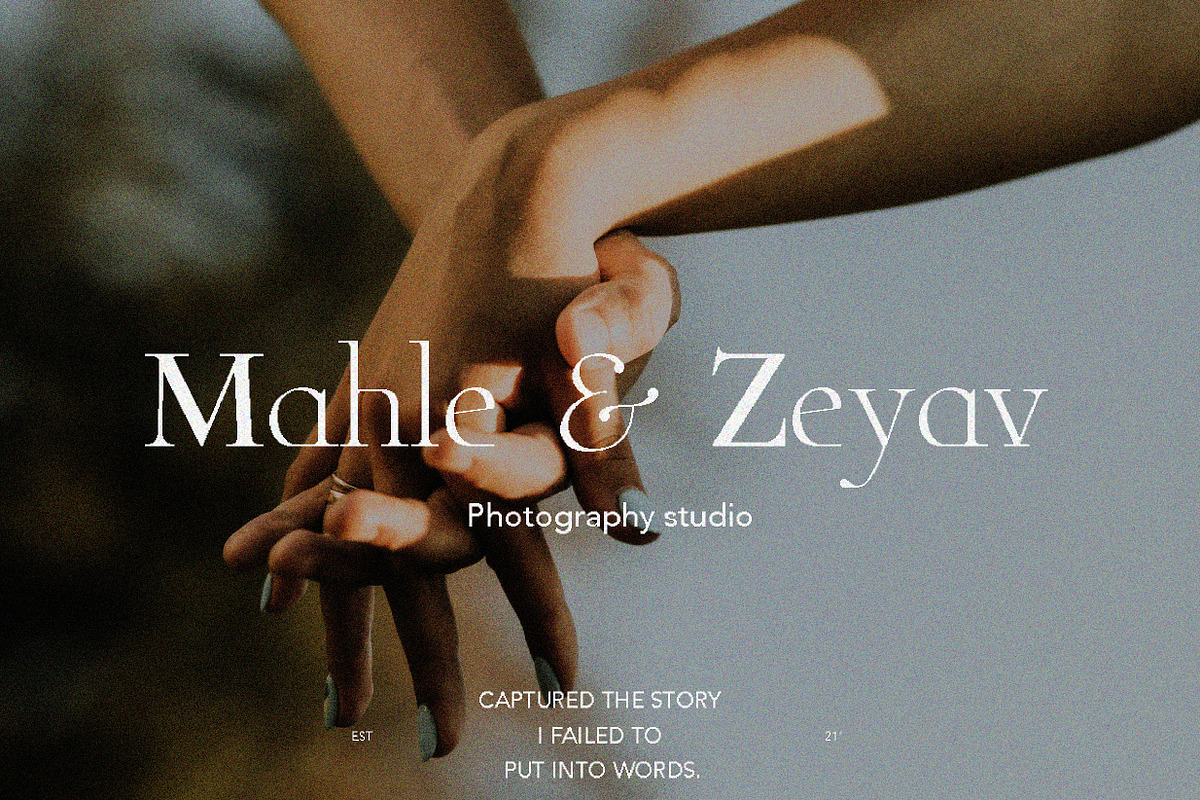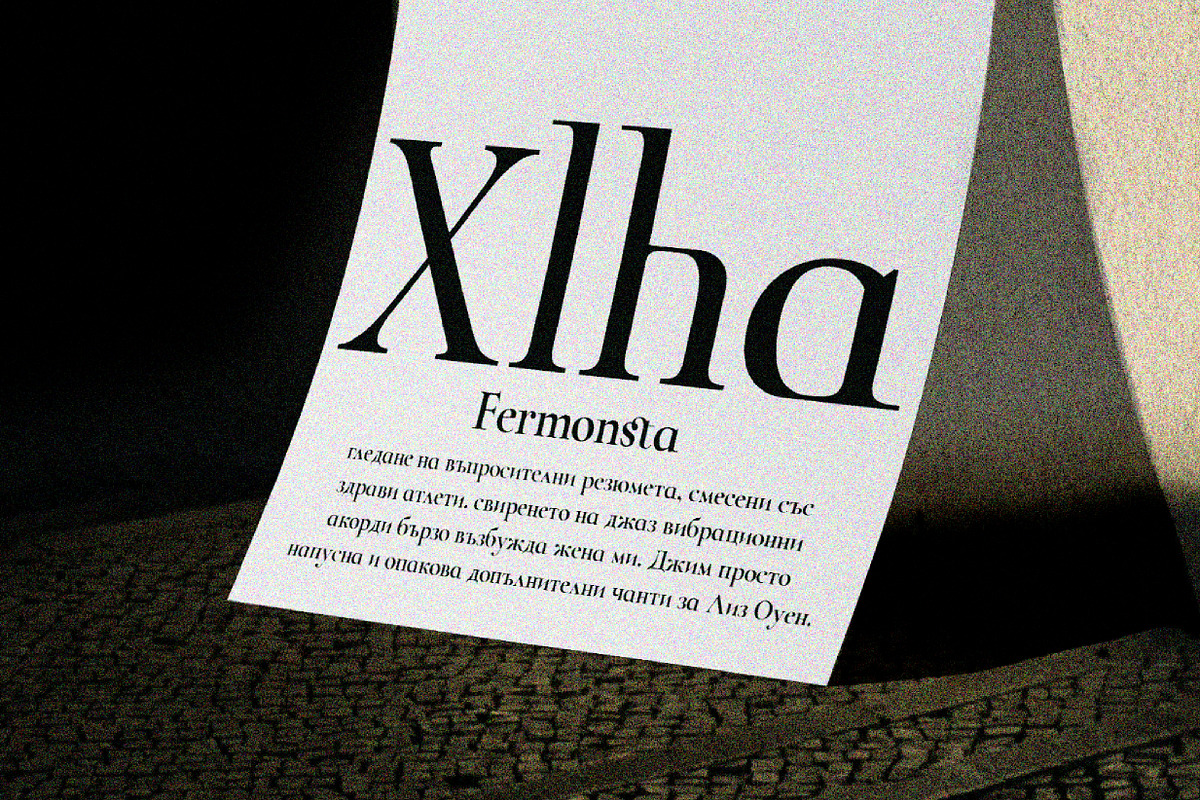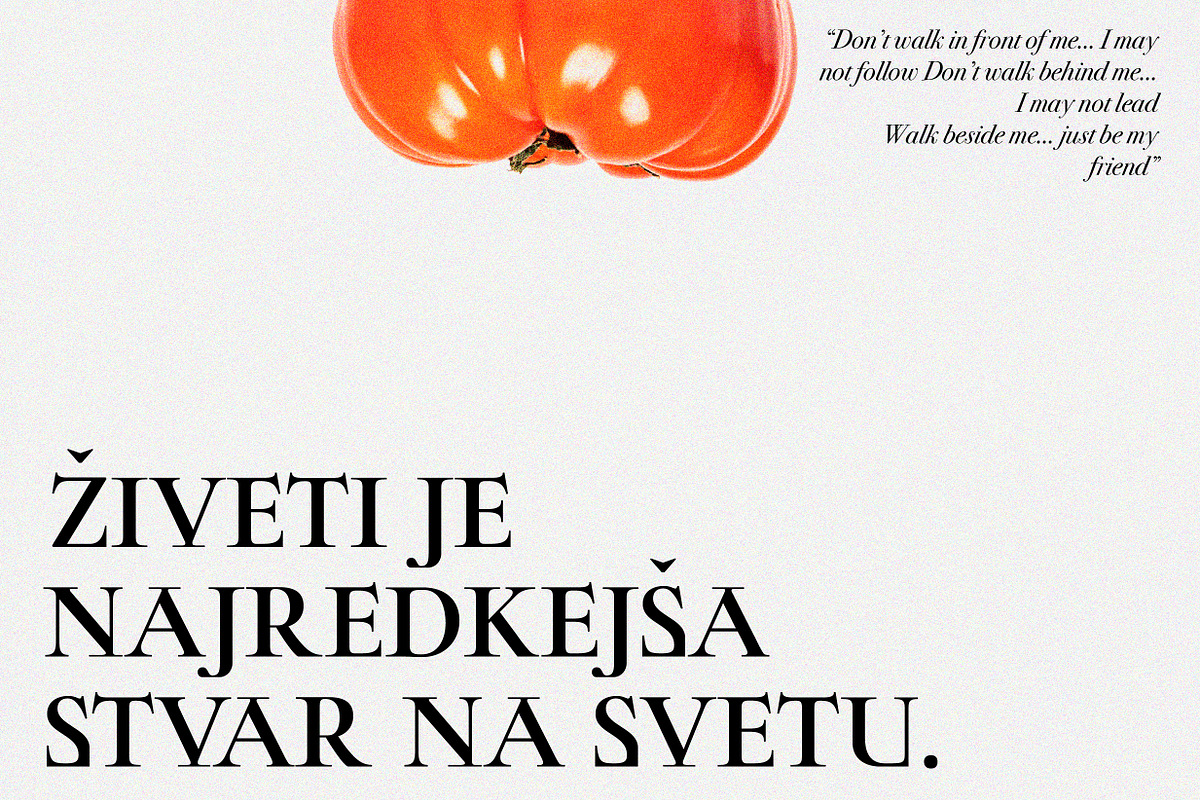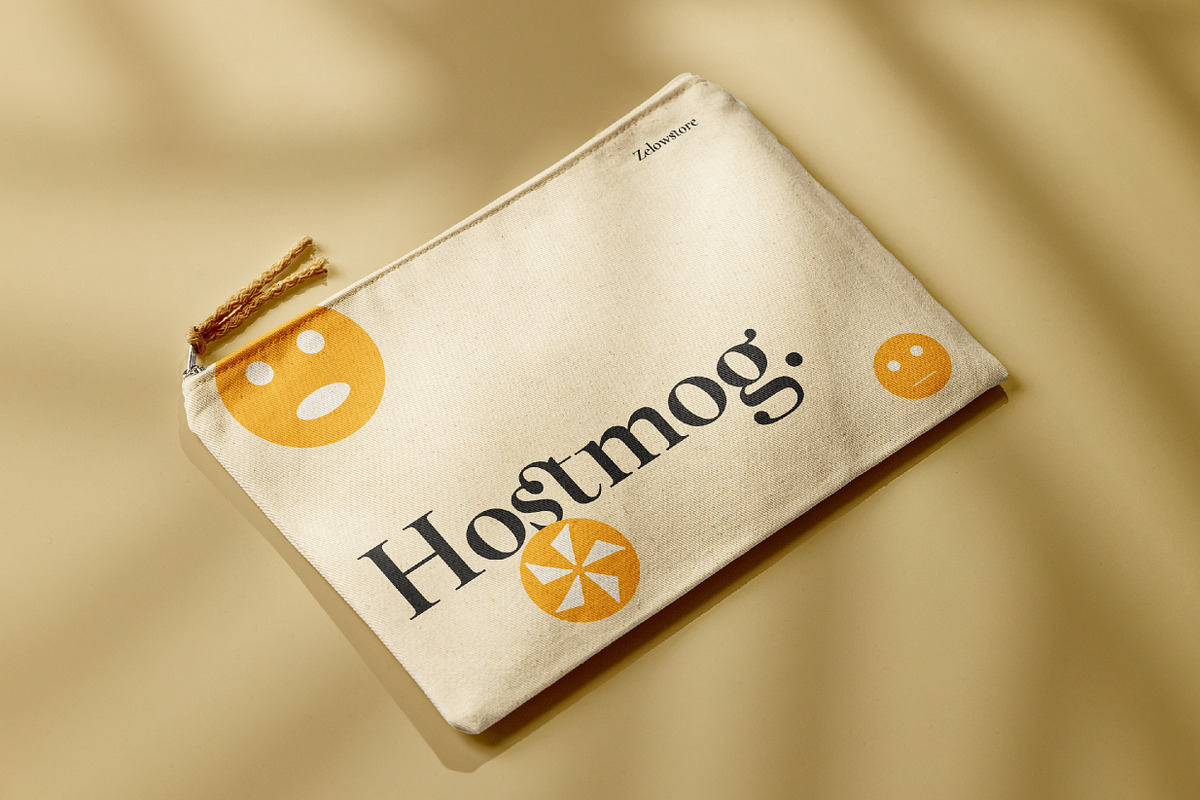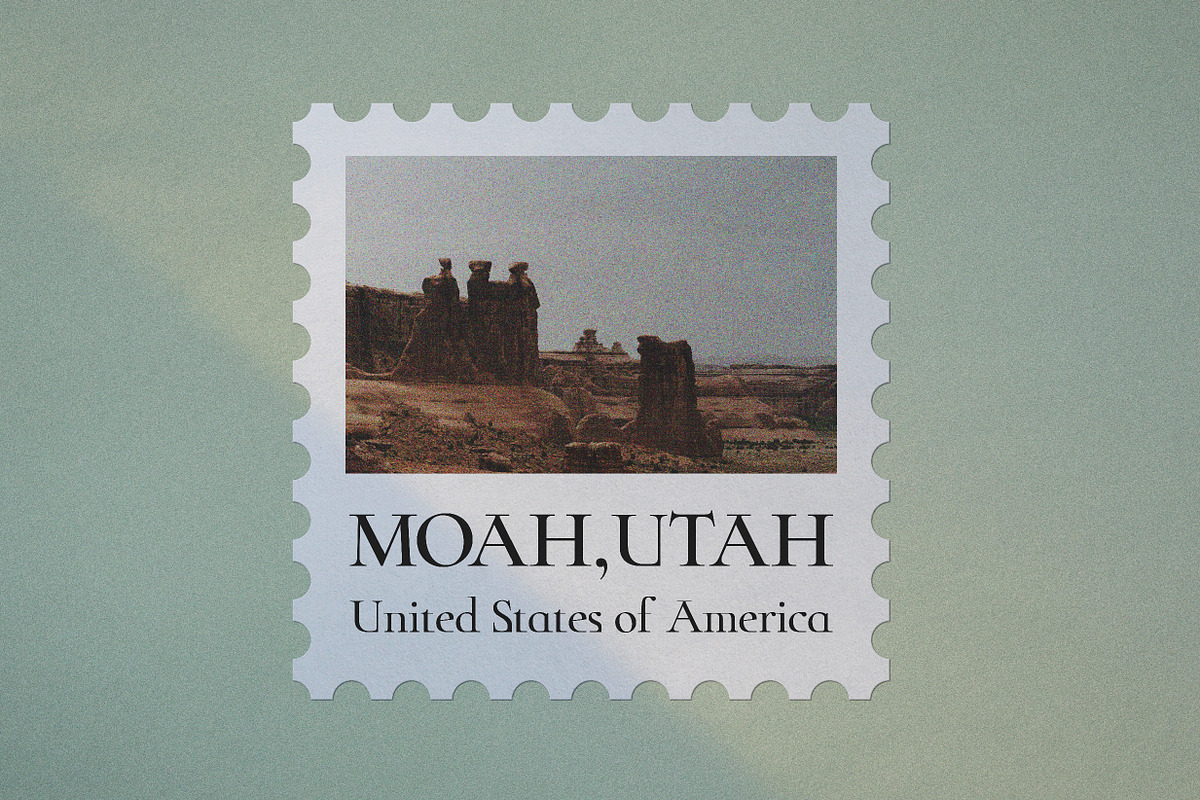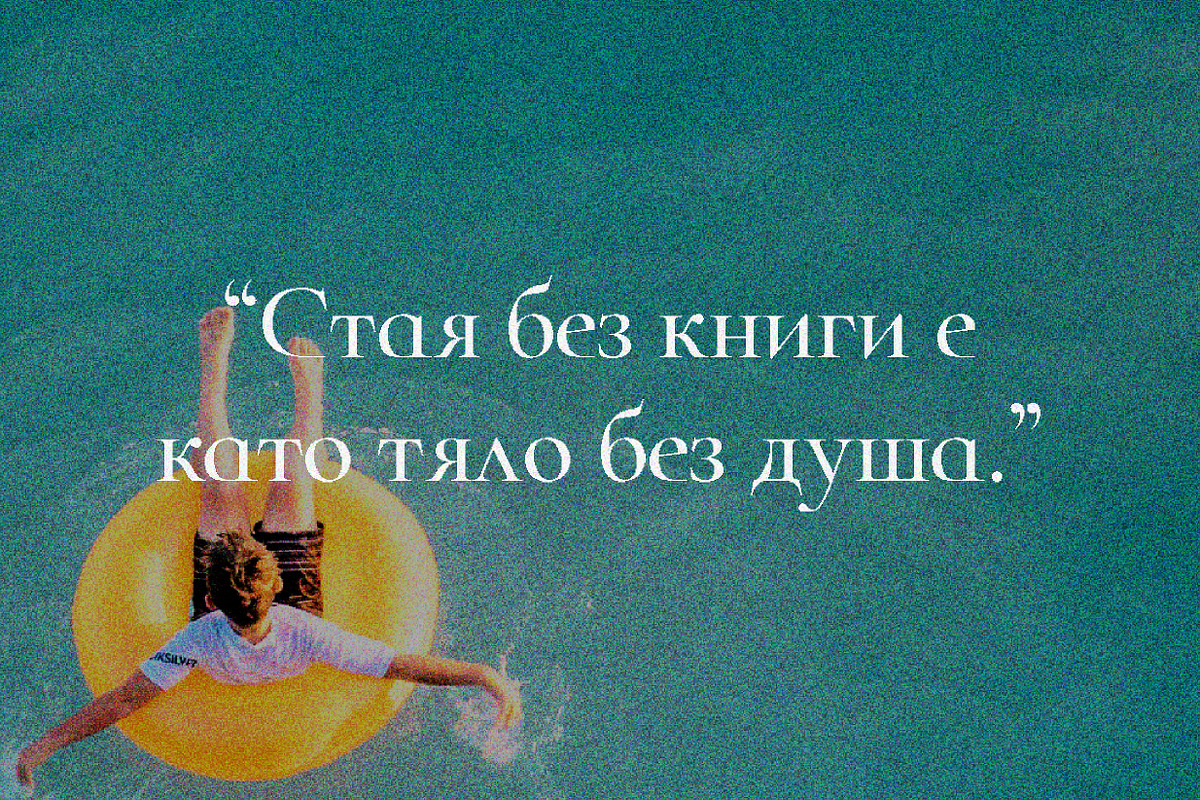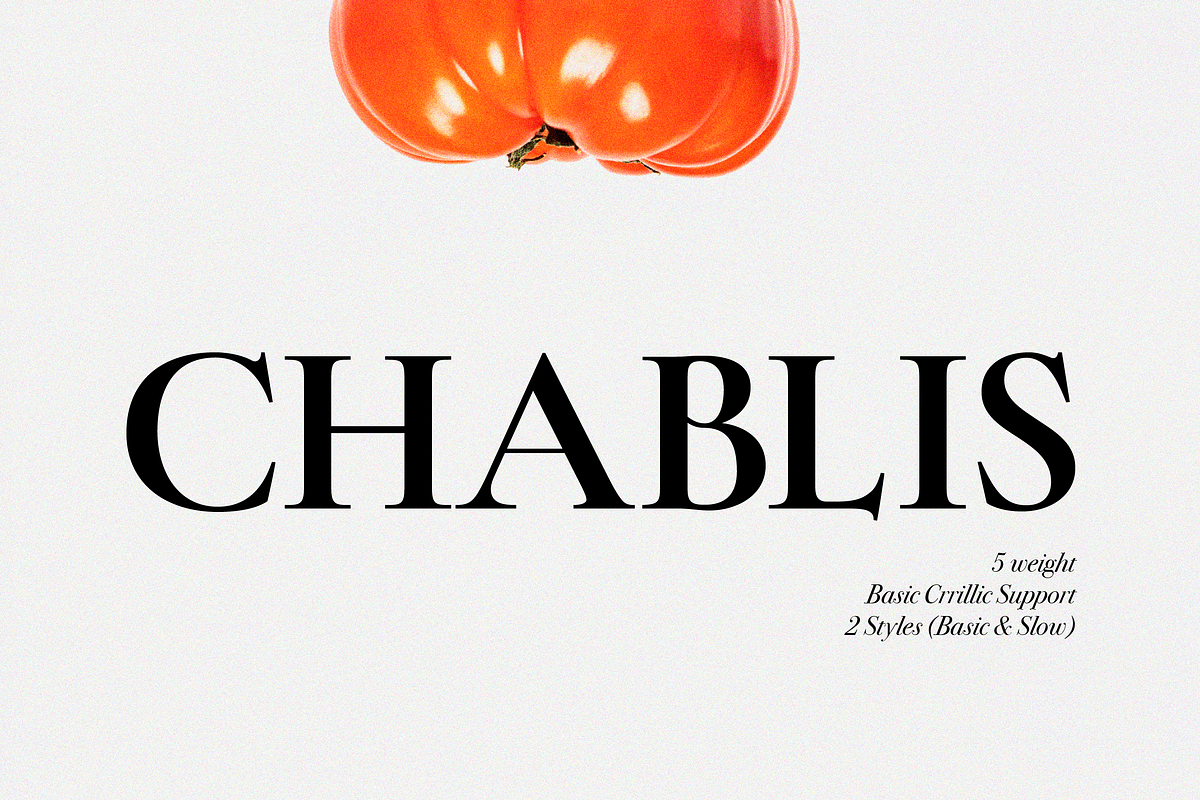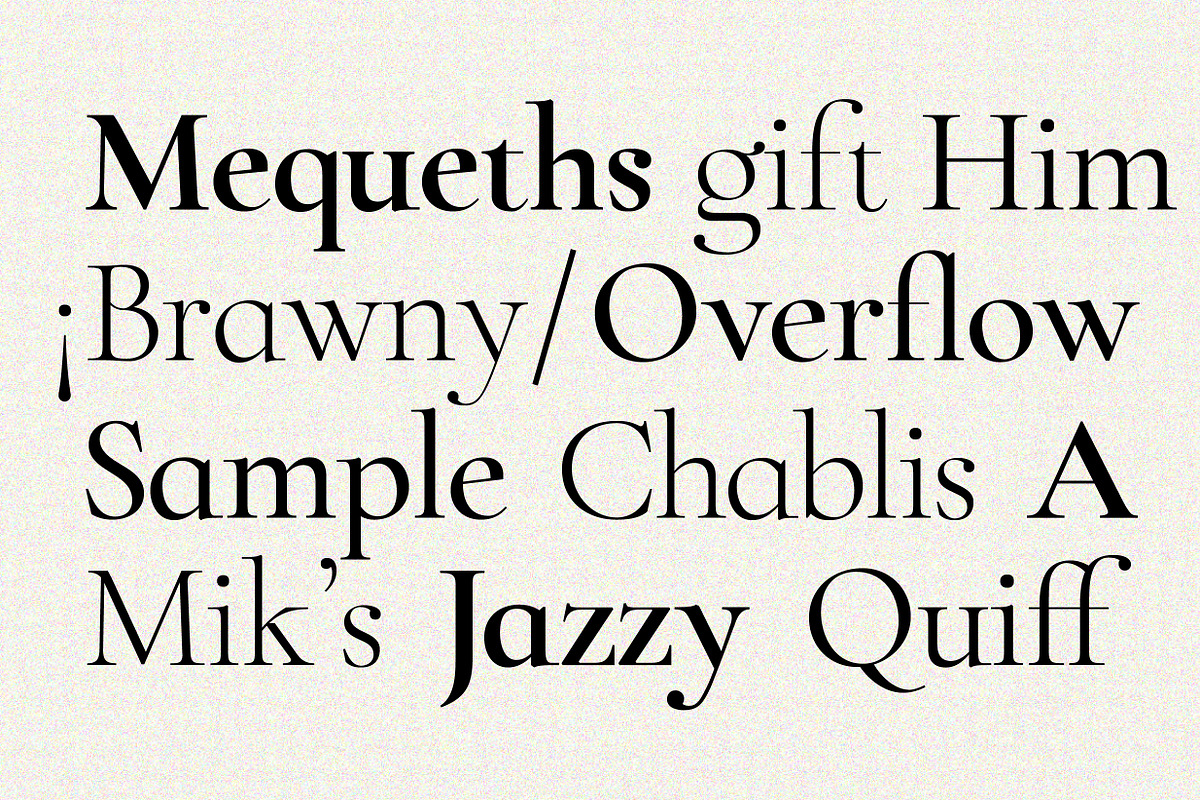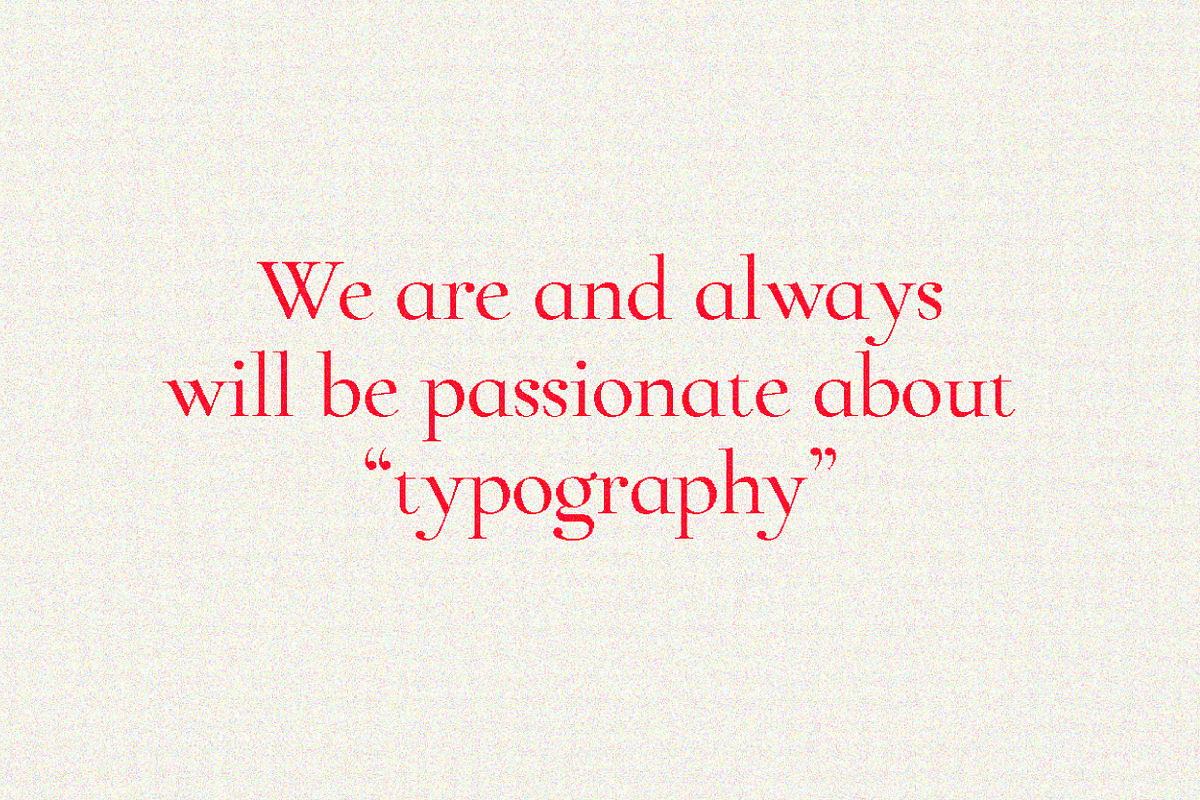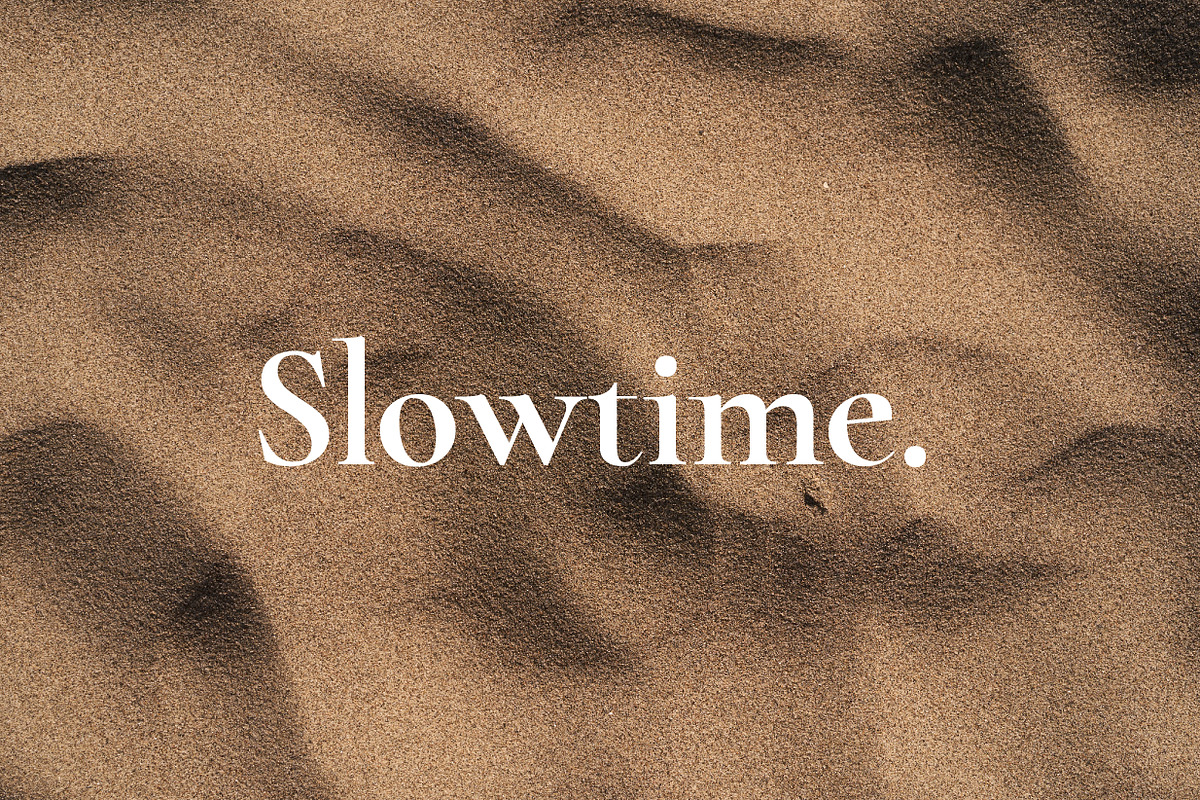
ZT Chablis - Classic serif
Chablis is a serif font with two different design colors including a cyrillic typeface.
Chablis comes in 2 styles, and each style has 5 weights, Chablis Basic shape with a harmonious and classic look that makes you feel nostalgic for precious memories from the golden years that have passed,
Chablis Slow shape with a sharp look at the bottom corner of small letters but very elegant and classy, very suitable for presenting a new atmosphere of corporate identity design, websites, publications, titles, books, magazines, business cards, logos, product labels, packaging or any kind of purpose advertising.
• Chablis Basic (uppercase, lowercase & Cyrillic) • Chablis Slow (uppercase, lowercase & Cyrillic) • Numbers & punctuation • Classic Numbers • Ligature • Foreign language support